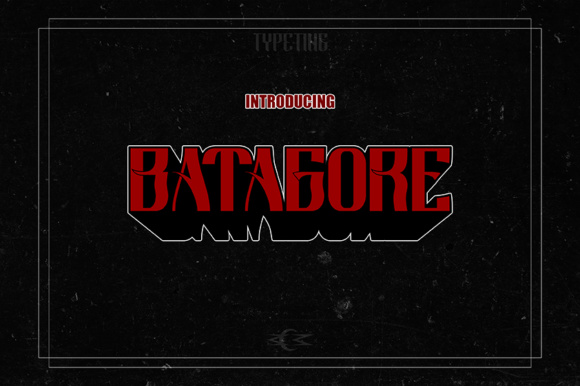
Dive into the world of Batagore Font, a display font family that's ready to captivate your designs with its bold and striking presence. Inspired by the vibrant street food carts of 'Batagor', this font exudes a sense of authenticity and local charm.
Batagore Font is a visual treat, with its large, commanding letters that demand attention. Whether you're creating posters, branding, social media graphics, or website designs, this font will make your words pop and leave a lasting impression. The thick, solid strokes of Batagore Font convey a sense of strength and stability, making it perfect for headlines, logos, and other attention-grabbing elements.
But Batagore Font is more than just a pretty face. It's a versatile performer that can adapt to a wide range of design styles. From bold and edgy to playful and whimsical, Batagore Font has the chameleon-like ability to transform itself to suit your creative vision. Unleash your imagination and let Batagore Font take your designs to new heights.
This remarkable display font is the brainchild of Typeting Studio, a renowned design foundry known for its innovative and boundary-pushing typefaces. With Batagore Font, they've created a font that not only looks stunning but also carries a unique story, a tribute to the vibrant street food culture of a city.
If you're looking for a font that will make your designs stand out from the crowd, look no further. Batagore Font is the ultimate choice for designers who dare to be different. Its bold personality and captivating presence will leave an unforgettable mark on your audience, ensuring that your message is seen, heard, and remembered.
So why settle for ordinary when you can have extraordinary? Embrace the bold and beautiful Batagore Font today and let your designs shine brighter than ever before.